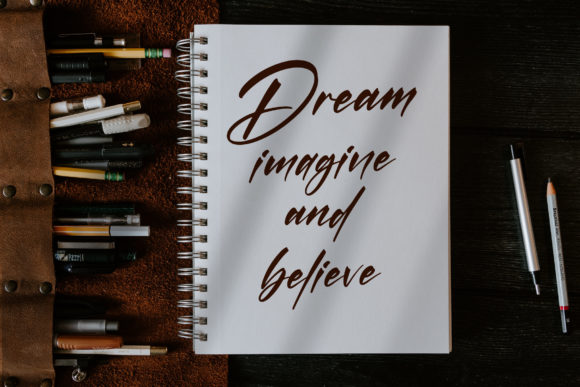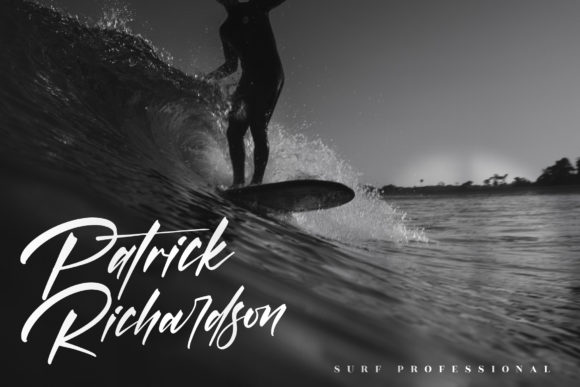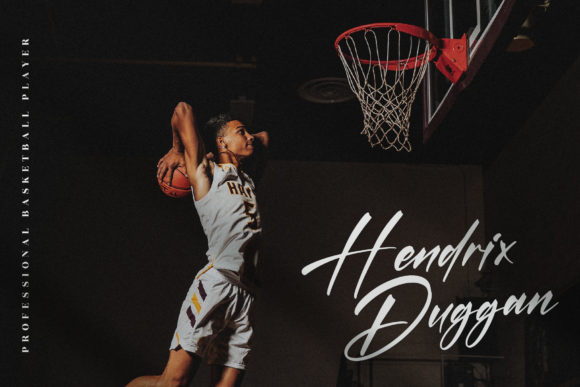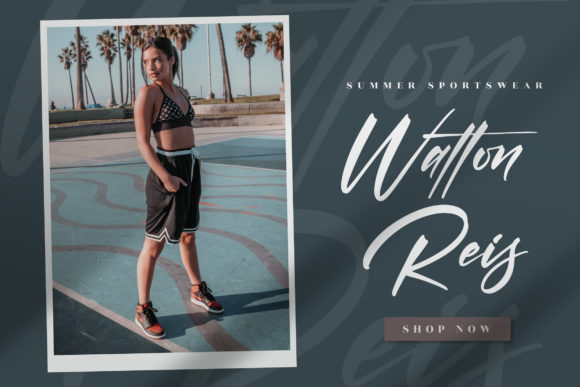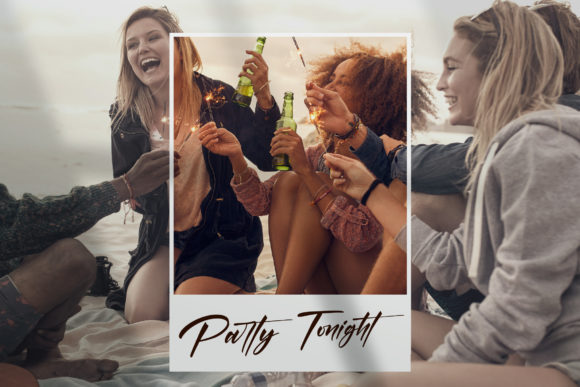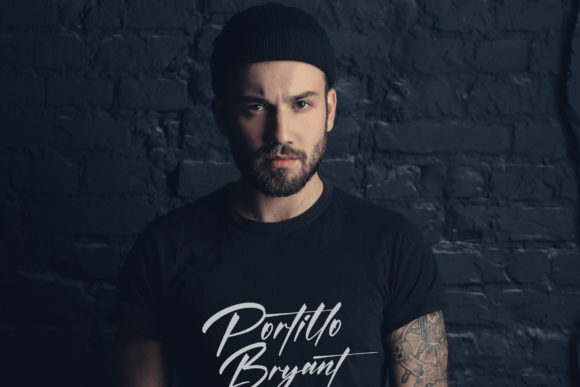
Introduction to Portillo Bryant Font Font
Fonts play a crucial role in design, and the Portillo Bryant Font font is a typeface that brings both character and versatility to any project. Whether you’re working on a branding project, a website, or a print design, the Portillo Bryant Font font offers a unique style that can elevate your work.
Portillo Bryant is a lovely and delicate script font that exudes elegance and class.
Key Features of Portillo Bryant Font Font
Why Choose Portillo Bryant Font Font?
The Portillo Bryant Font font is more than just a typeface – it’s a design tool that helps you communicate your message with style and clarity. Its unique character set and versatile design make it suitable for a wide range of applications, from elegant invitations to bold headlines.
With its carefully crafted letterforms and balanced proportions, the Portillo Bryant Font font ensures readability and visual appeal across all mediums.
What makes Portillo Bryant Font font special?
The Portillo Bryant Font font stands out with its unique design, exceptional readability, and versatility across various design applications.